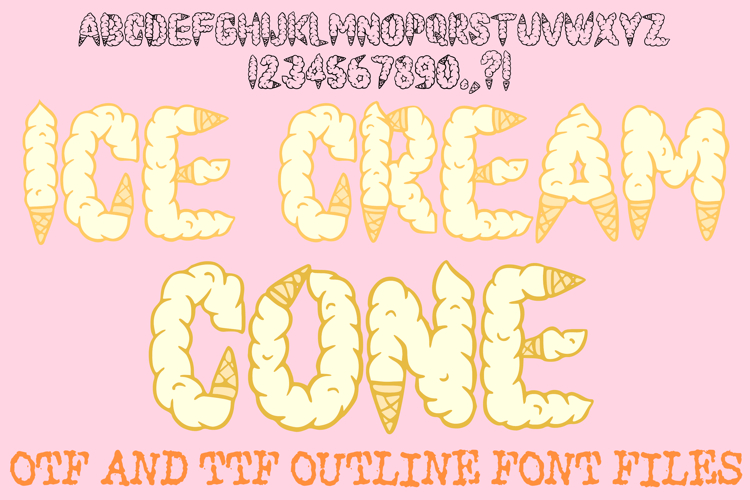
The Ice Cream Cone Font is a delightful, summer-inspired display typeface where every character is sculpted from soft-serve swirls and crunchy waffle cones. Featuring bubbly, cloud-like letterforms and textured cone accents, this font is a sweet essential for designers creating birthday party invitations, ice cream shop branding, seasonal festival posters, and playful social media content.
The design captures the joy of a sunny afternoon treat, with hand-drawn outlines that give each letter a whimsical, "melting" personality. Whether you are building an identity for a dessert truck or designing vibrant children's apparel, this font provides a fun, high-impact aesthetic that is as refreshing as a cold scoop on a hot day.
Why Your Designs Will Stand Out
Waffle Cone Details: Each letter and number incorporates detailed cone textures at the terminals or stems, adding a unique structural element to the typography.
Soft-Serve Curves: The thick, rounded "scoop" shapes give your text a friendly, approachable, and voluminous look.
Summer Celebration Theme: Perfectly tailored for dessert-themed events, making it a standout choice for menu headers and party decor.
Highly Legible Display: The bold construction ensures that your titles remain clear and eye-catching on posters, t-shirts, and digital banners.